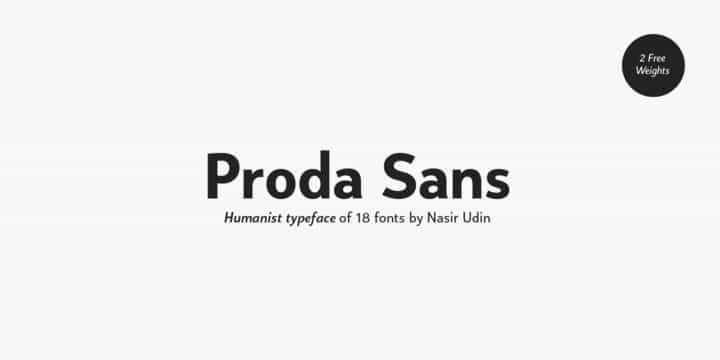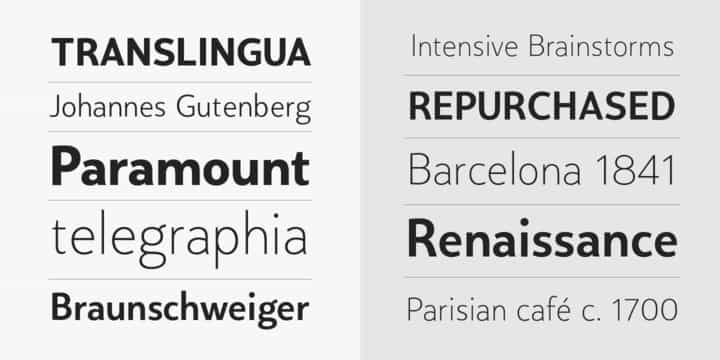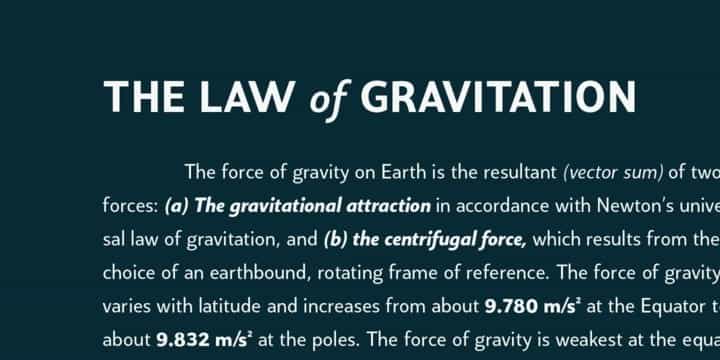
Proda is a scaly sans-serif font with uppercase and lowercase letters for each language, designed for headlines as well as large amounts of text on flyers, magazines, websites, etc. Proda provides multilingual support that makes this typeface great for headlines as well as large sections of text!